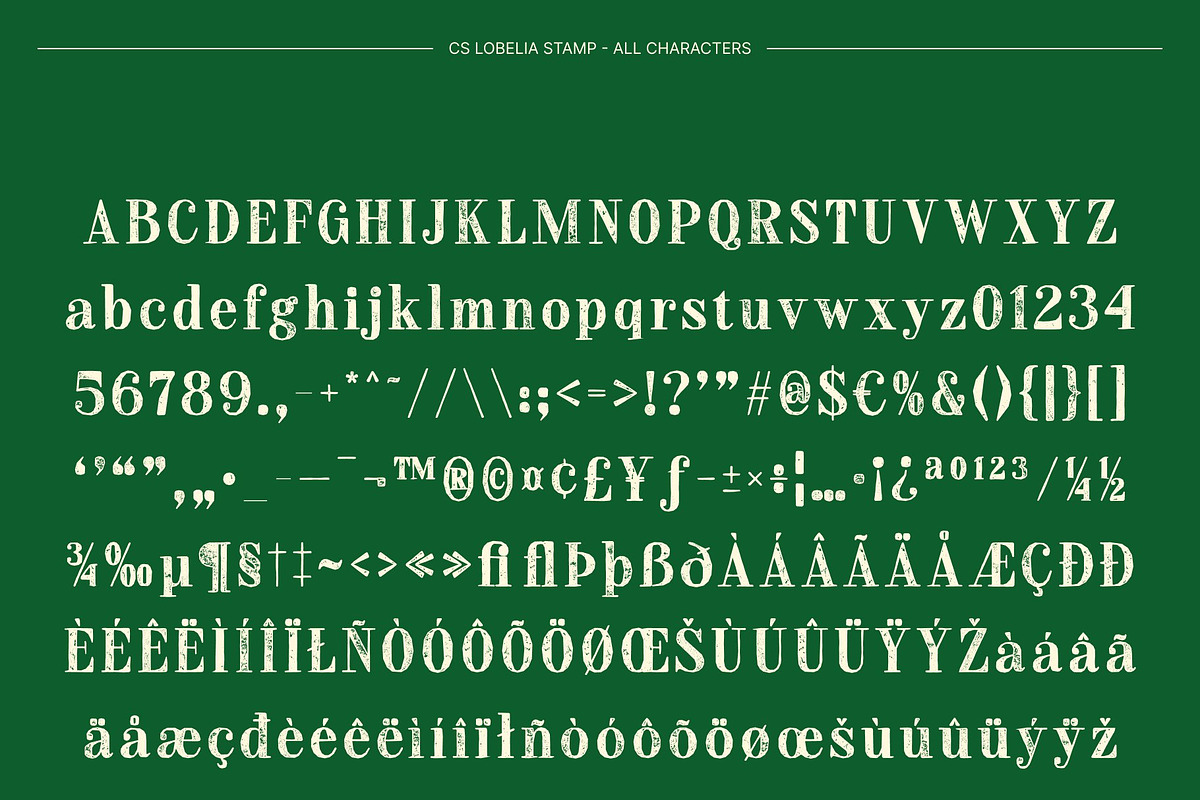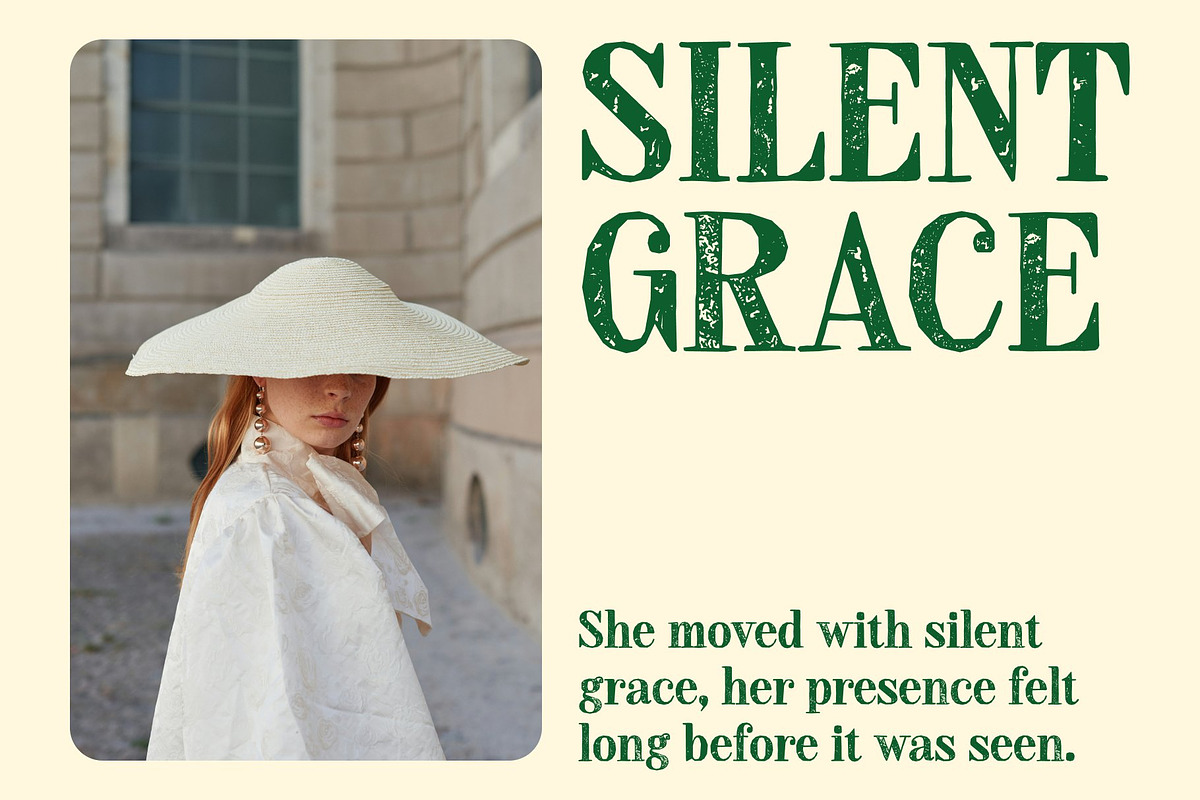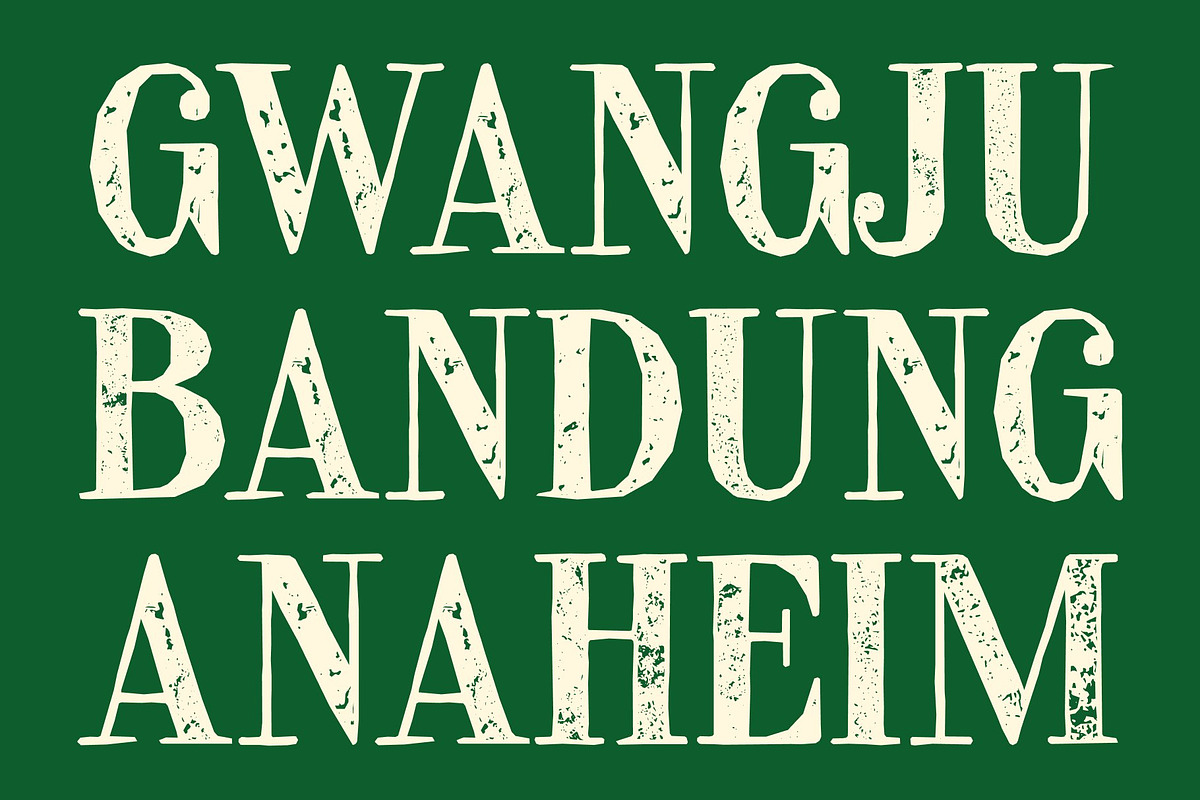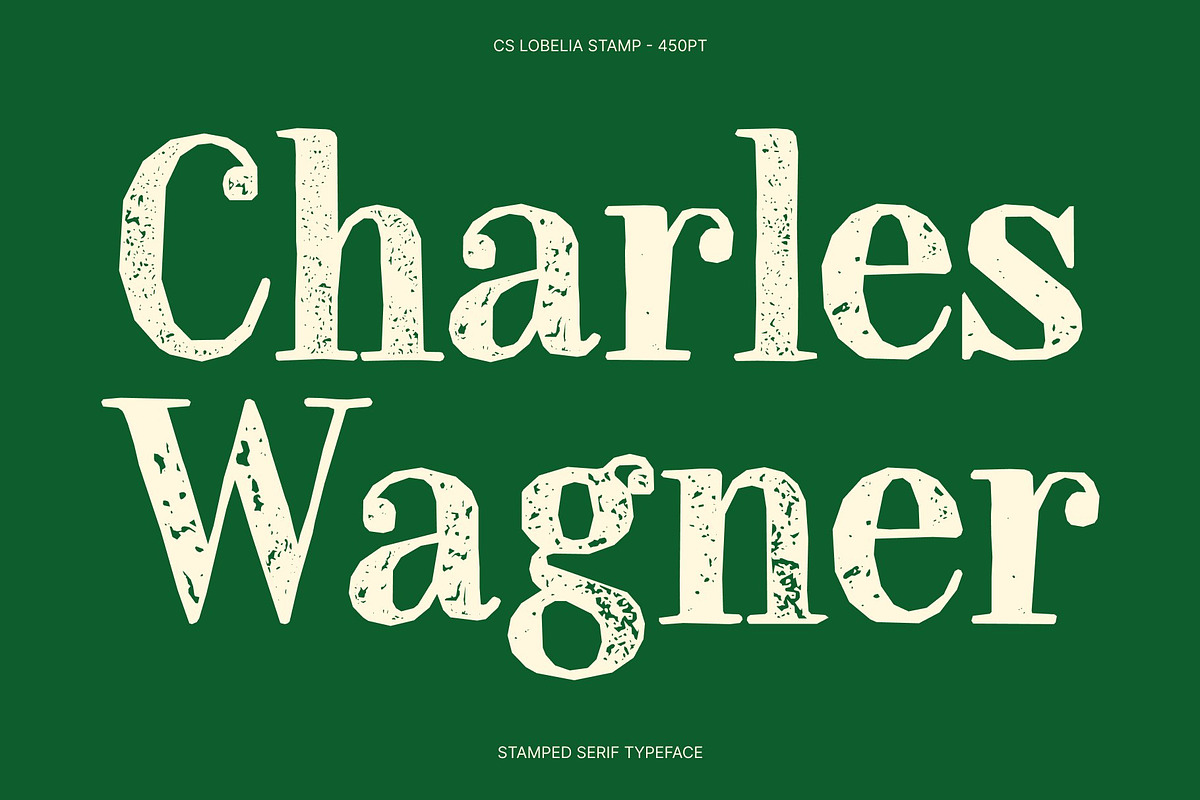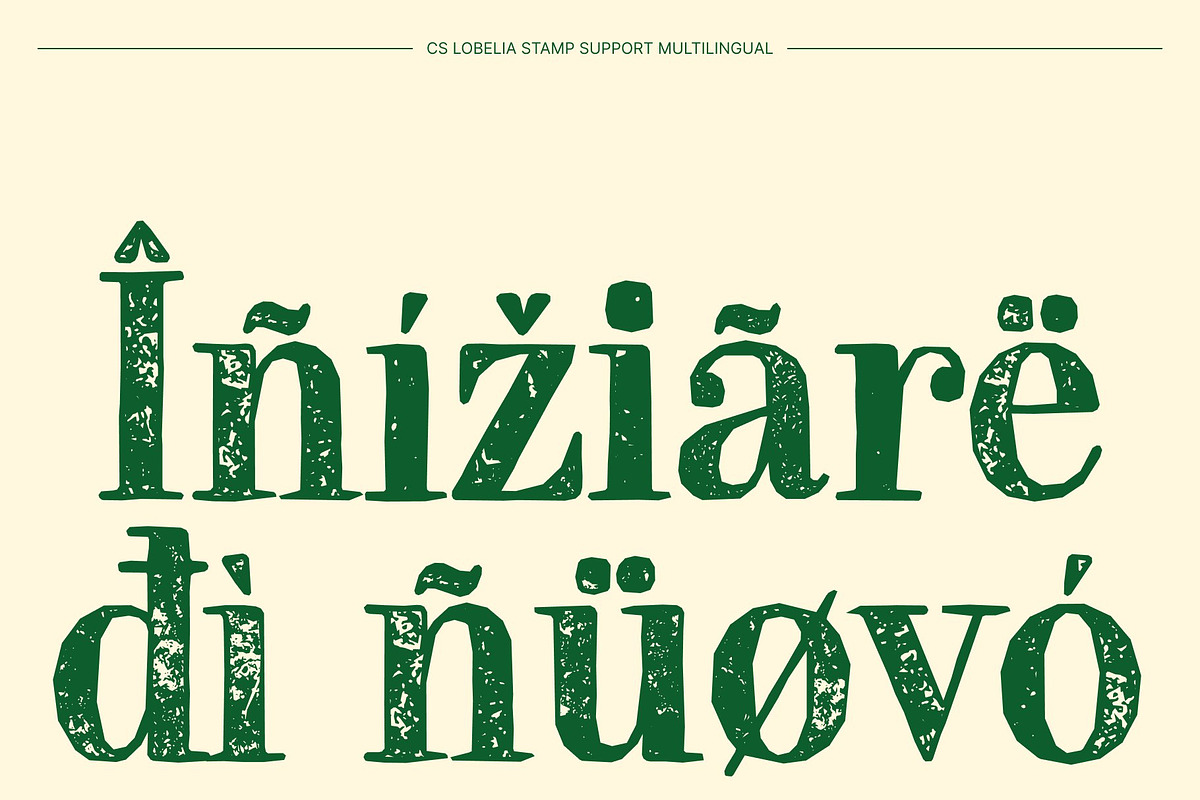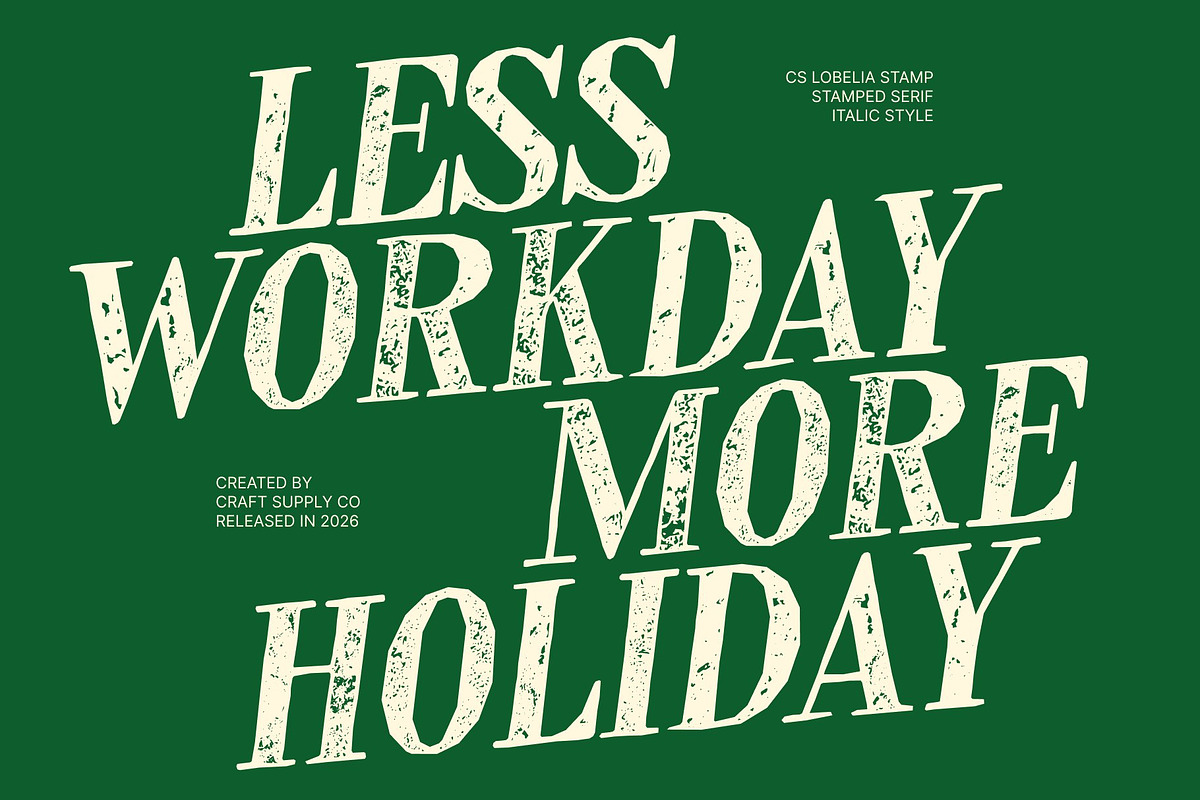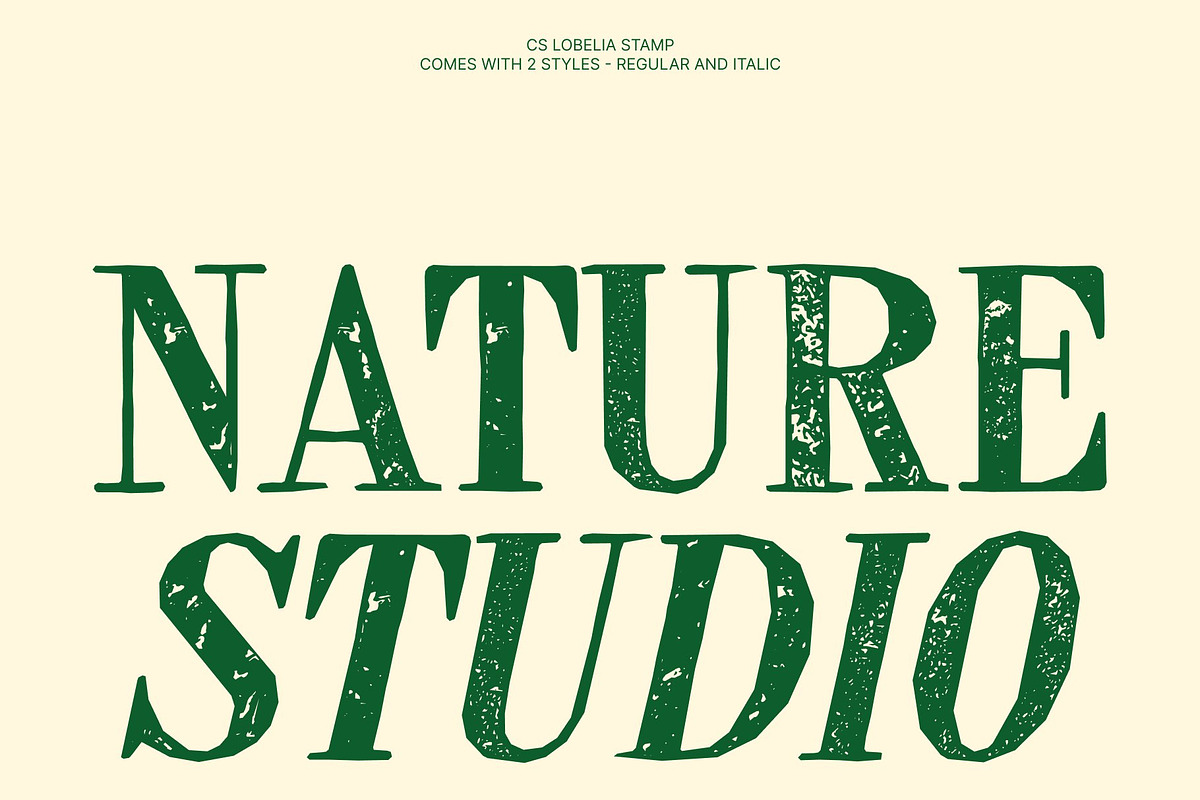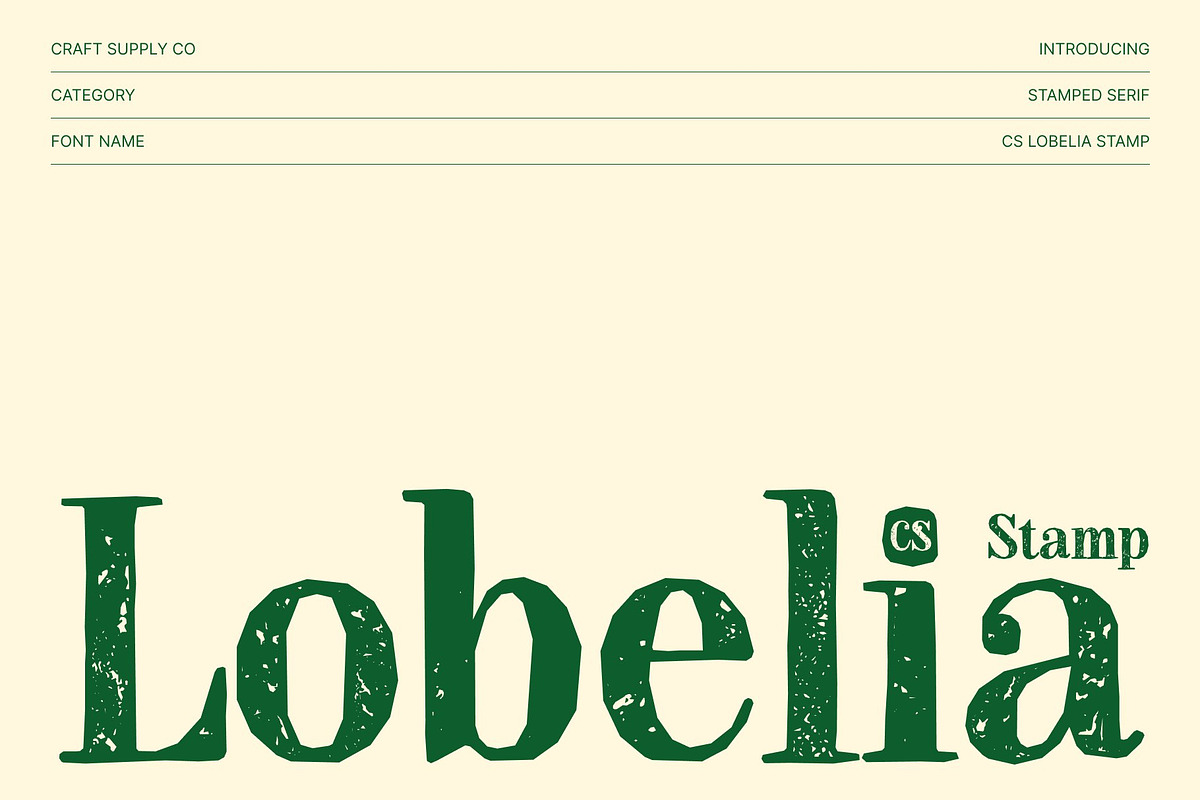
CS Lobelia Stamp
CS Lobelia Stamp – Didone Serif Font: Luxury Refined with Vintage Texture
Elegant Contrast with Textured Sophistication This font is a modern Didone serif font that combines striking high-contrast letterforms with a distinctive stamp texture. Its dramatic thick and thin strokes, sharp serifs, and graceful proportions create an unmistakable sense of luxury and refinement. The stamped effect introduces subtle imperfections and ink-like details, adding warmth and authenticity to the otherwise polished structure.
Luxury Presence for Editorial and Branding Designed to elevate premium visual identities, this font shines in fashion branding, magazine layouts, and upscale packaging. Its tall x-height and refined proportions ensure excellent readability while maintaining a graceful and commanding presence. The textured finish enhances visual depth, helping headlines and logos feel more distinctive and memorable. This makes the font a powerful choice for brands seeking a timeless yet expressive typographic voice.
Classic Beauty with Vintage Print Charm The stamp effect enhances the Didone style by adding a nostalgic print-inspired finish reminiscent of traditional ink and letterpress techniques. Slightly rough edges and organic details soften the precision of the high-contrast strokes, creating a harmonious balance between perfection and imperfection. This subtle vintage influence enriches the luxurious aesthetic while keeping the font modern and relevant.
Perfect for High-End Creative Projects This font adapts beautifully across print and digital media, making it ideal for invitations, advertising, editorial design, and boutique branding. It communicates elegance, confidence, and timeless beauty in every composition.
CS Lobelia Stamp Regular
CS Lobelia Stamp Italic